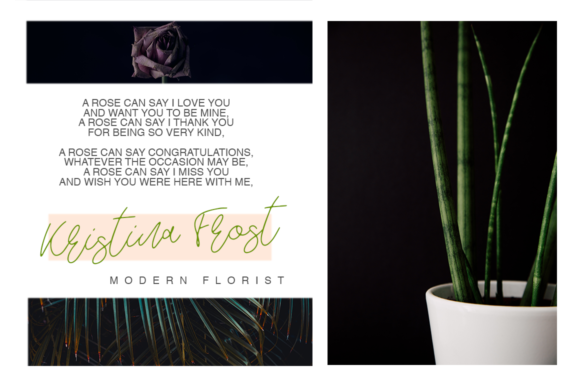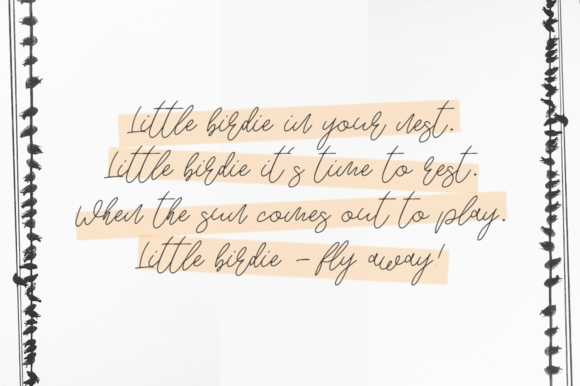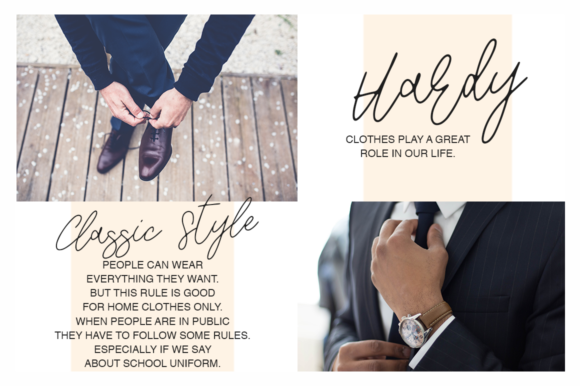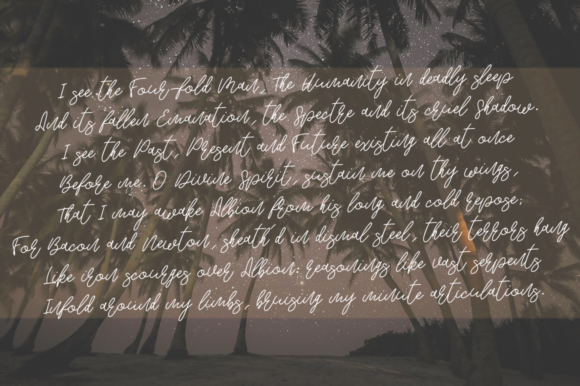
HomeScript FontsBerzeker Font Script Fonts Berzeker Font FacebookTwitterPinterestWhatsApp Berzeker Font Poster 2 Berzeker Font Poster 3 Berzeker Font Poster 4 Berzeker Font Poster 5 About Berzeker Font Berzeker is a casual and fun script that combines legibility and elegance into one truly original font. DOWNLOAD NOW People also explored Swinkydad Sanitation Font Kally Font Pawsome Father Font Phaeton Font The Blackheads Font Whytespark Font Handstory Font Voulentire Font 155 0 TagsBerzeker Font Previous articleBlack Label FontNext articleHeartkything Script Font LEAVE A REPLY Cancel reply Comment: Please enter your comment! Name:* Please enter your name here Email:* You have entered an incorrect email address! Please enter your email address here Website: Save my name, email, and website in this browser for the next time I comment. Personal Use Free Omellia Personal Use Free Read more about this font Bulky Personal Use Free Read more about this font Artisan Signature Personal Use Free Read more about this font BD RatterBit Personal Use Free Read more about this font BLOG To increase your work productivity, choose the most readable fonts. In today's fast-paced work environment, where digital communication and information consumption are integral to our daily routines, the choice of fonts can significantly impact... Best Fonts for YouTube Videos: Make Your Thumbnails Stand Out The 10 Best Handwriting Fonts to Add Personality to Your Designs Best Fonts for T-Shirt Design – Top 2025 Picks